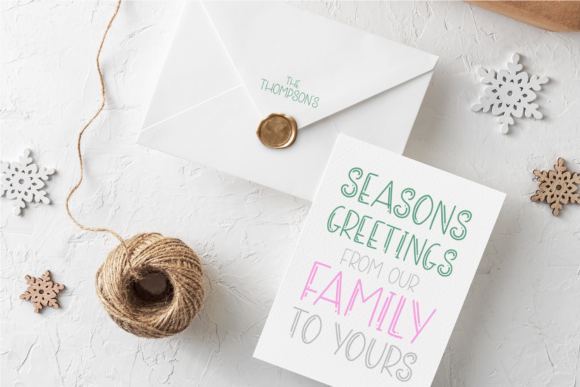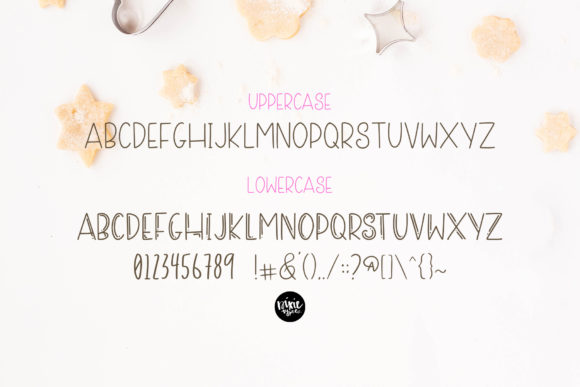
Sugar Cookie Font
About Sugar Cookie Font
Sugar Cookie is an eye-catching script font with a unique style. Fall in love with its incredibly versatile style and use it to create spectacular designs!